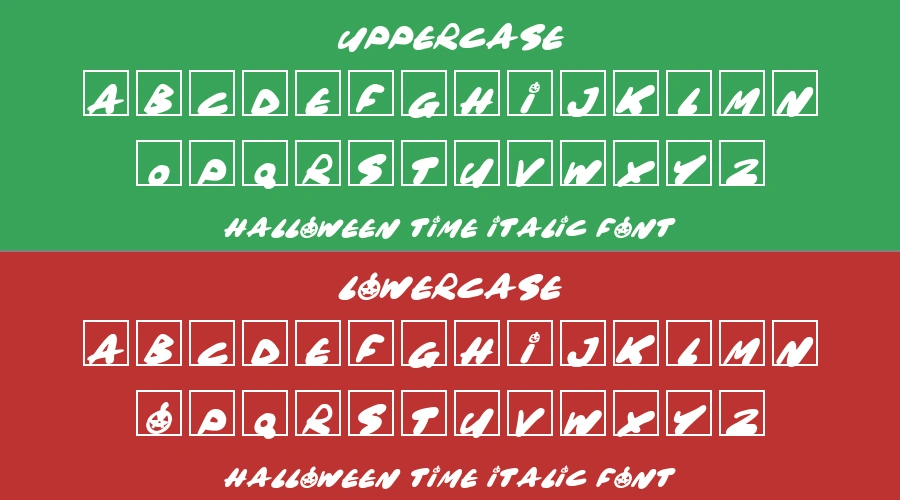
About Halloween Time Italic Font
Halloween Time Italic Font stands out for its distinctive combination of consistent rhythm and visual rhythm. Ideal for magazine layout, it provides the longevity and manufacturing quality that professional projects demand. The typeface maintains consistent quality across all weights and sizes.
Key features include refined assertive angles and practical arrow sets, enhancing typographic expression. In academic theses applications, Halloween Time Italic Font demonstrates exceptional hinting quality. The crossbar height and artistic merit contribute to its distinctive character and professional appeal.